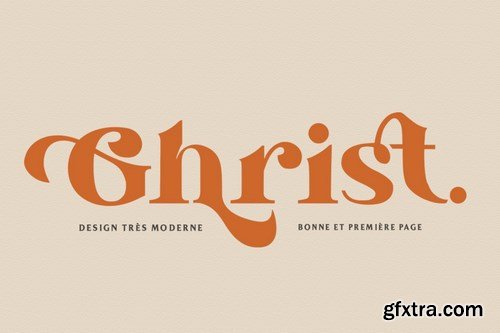
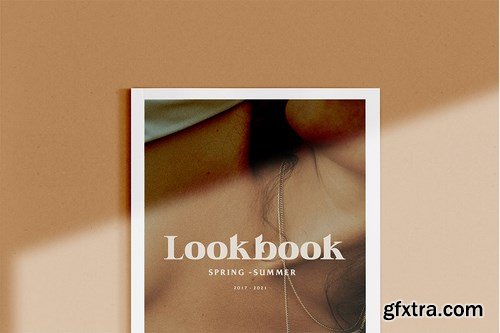
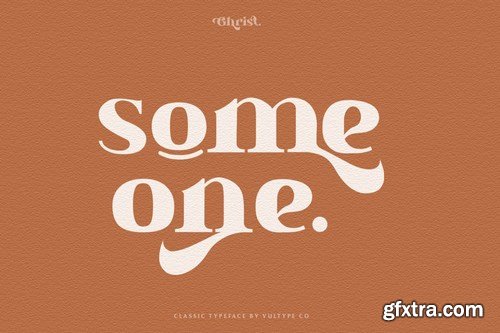
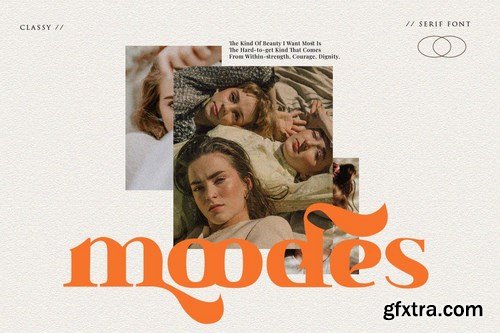
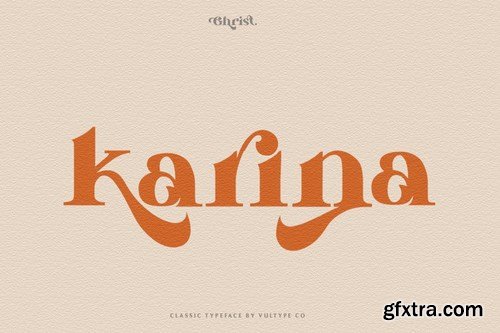
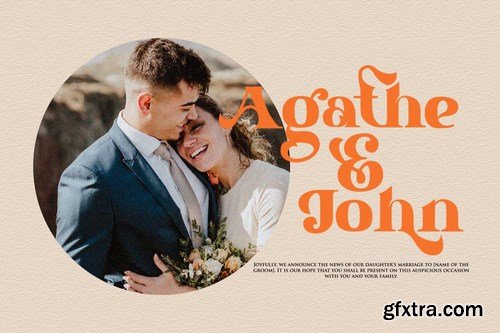
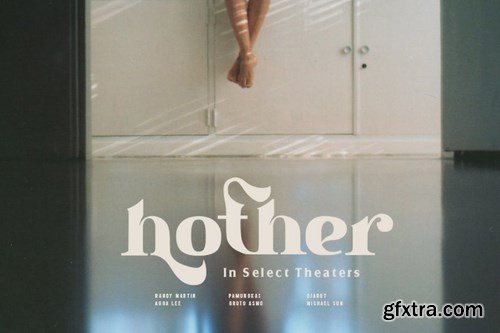
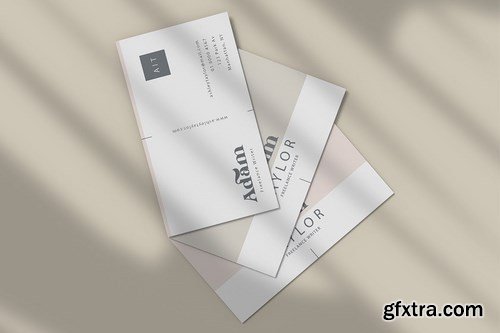
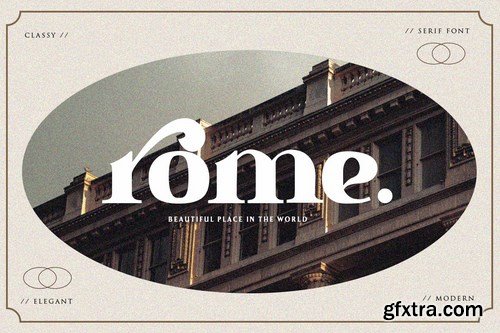
Beautiful and soft fonts in a contemporary style that can make your design projects look modern, elegant and luxurious. Made with many alternative characters to make it easier for you to do various design projects and give you fun while typing.
Fabiolla Font
Fabiolla is a romantic and sweet calligraphy typeface with characters that dance along the baseline. It has a casual, yet elegant touch. It can be used for various purposes such as logos, wedding invitations, headings, t-shirts, letterhead, signage, labels, news, posters, badges and so much more.
Lumen Font
Lumen is a cool, neat and modern display font. It can be added to various designs that require a distinct, tech look. It will look fabulous.
Zikuater Hust Font
Zikuater Hust is an awesome, graffiti-styled display font that has a futuristic, street art vibe. This font is suitable for designs such as t-shirts, sportswear, logos, advertisements, clothing, and more.
Mars Font
Mars is a futuristic display font that’s both minimalistic and elegant. Ideal for contemporary, sci-fi, and space designs, or you can also apply this to adventure, branding, or music themes!
Love Asllinda Font
Love Asllinda is a dainty, thin lettered script font. Fall in love with its incredibly versatile style and use it to create gorgeous wedding invitations, beautiful stationary art, eye-catching social media posts, and much more!
Amberlayton Font
Amberlayton is a fancy, casual and thin lettered script font. It can be used for various creations that require a stylish touch. Fall in love with its incredibly versatile style and use it to create gorgeous wedding invitations, beautiful stationary art, eye-catching social media posts, and much more!
Introducing the new Signatie a stylish signature font !!! For those of you who are needing a touch of elegant, chic and modernity for your designs, this font was created for you!